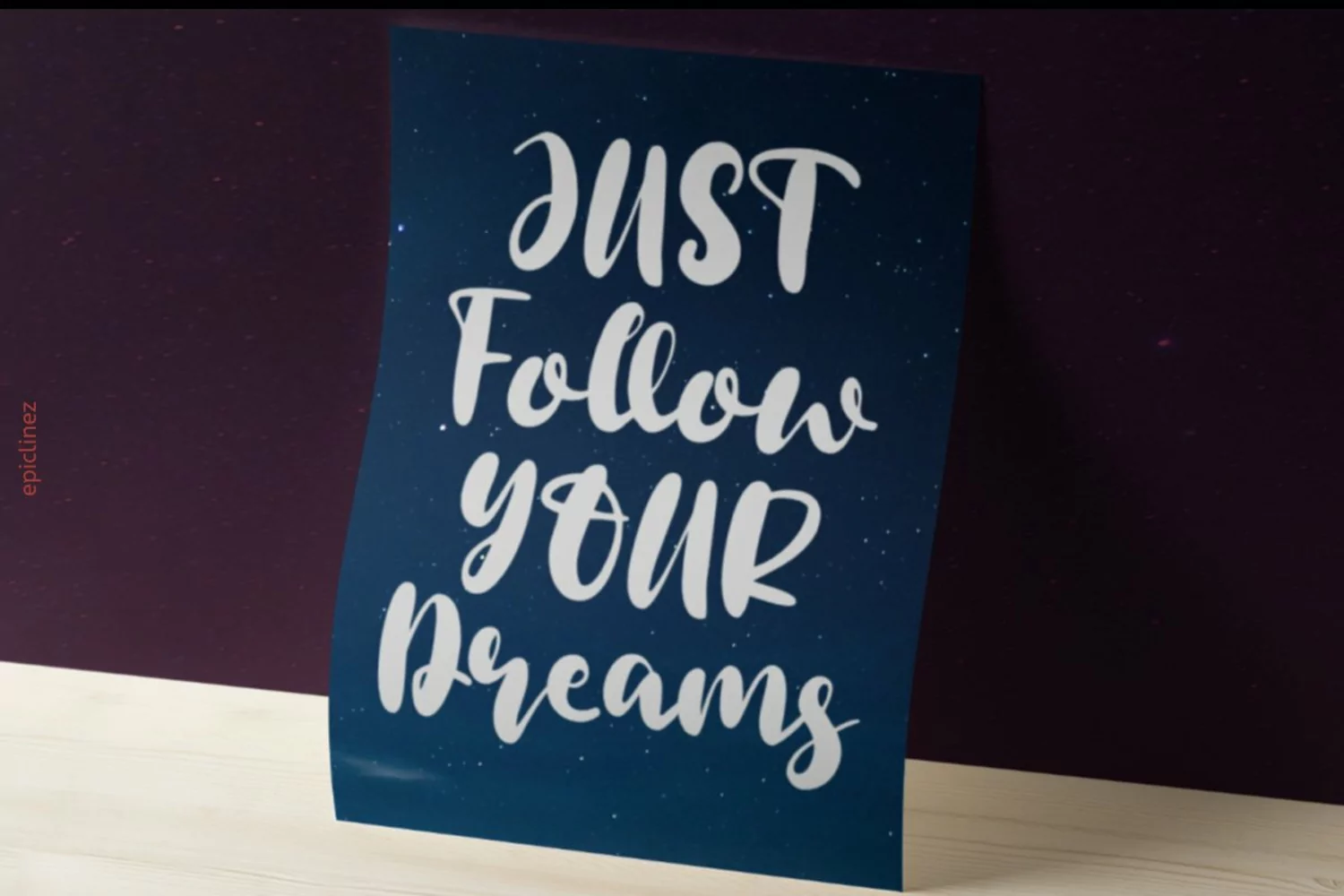
Purple Sky is a bold and fun script font. It will look outstanding in any context, whether it’s being used on busy backgrounds or as a standalone headline!
Purple Sky